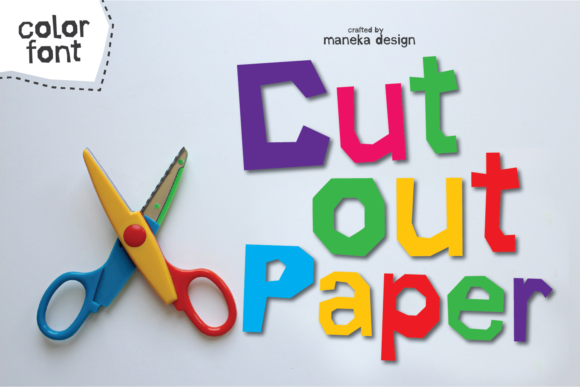
Introducing Cut Out Paper Font - the perfect crafting-themed font that will add a unique and eye-catching touch to any project. Created by the talented Maneka, this colorful font is perfect for books, magazines, invitations, and more.
With its cutout paper style, Cut Out Paper Font is sure to make your words stand out. Each glyph is carefully crafted to mimic the look and feel of cut-out paper, creating a playful and whimsical vibe that's perfect for a variety of projects.
But Cut Out Paper Font isn't just about looks - it's also incredibly versatile. With 8 alternate colors for the uppercase and lowercase glyphs, you'll have plenty of options to choose from. And thanks to its PUA encoding, accessing all of these glyphs is a breeze.